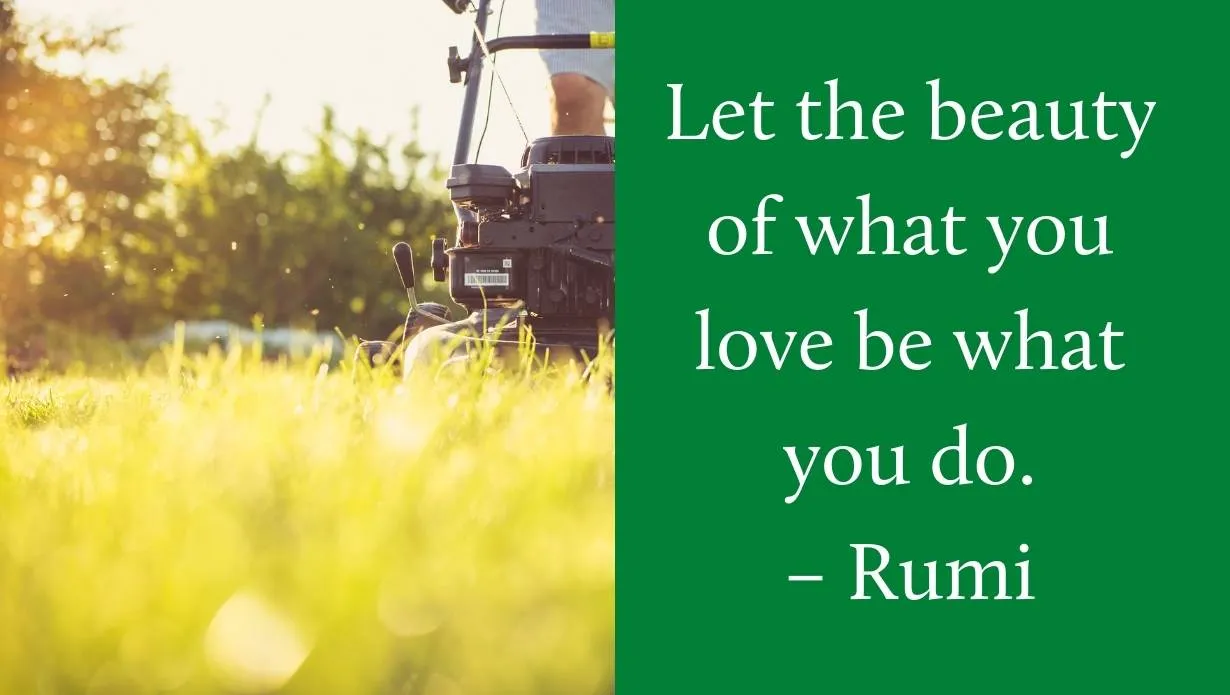
Today, we introduce a modern typeface that was known as Calluna Font. This typeface is the work of exljbris Font Foundry and it is a serif typeface with three different styles. This font family has its roots in the old-style serifs of the Renaissance period but has been carefully redrawn and reformed to give it a more contemporary look.
The result is a typeface that combines both classic and modern elements, making it perfect for a wide range of applications.
Calluna Font Family
The italic style is perfect for adding a touch of elegance to your designs, while the bold style is ideal for making a statement. Buttler Font is similar to this stylish font family.
| Name | Calluna Font |
| Designer | exljbris Font Foundry |
| Style | Seirf |